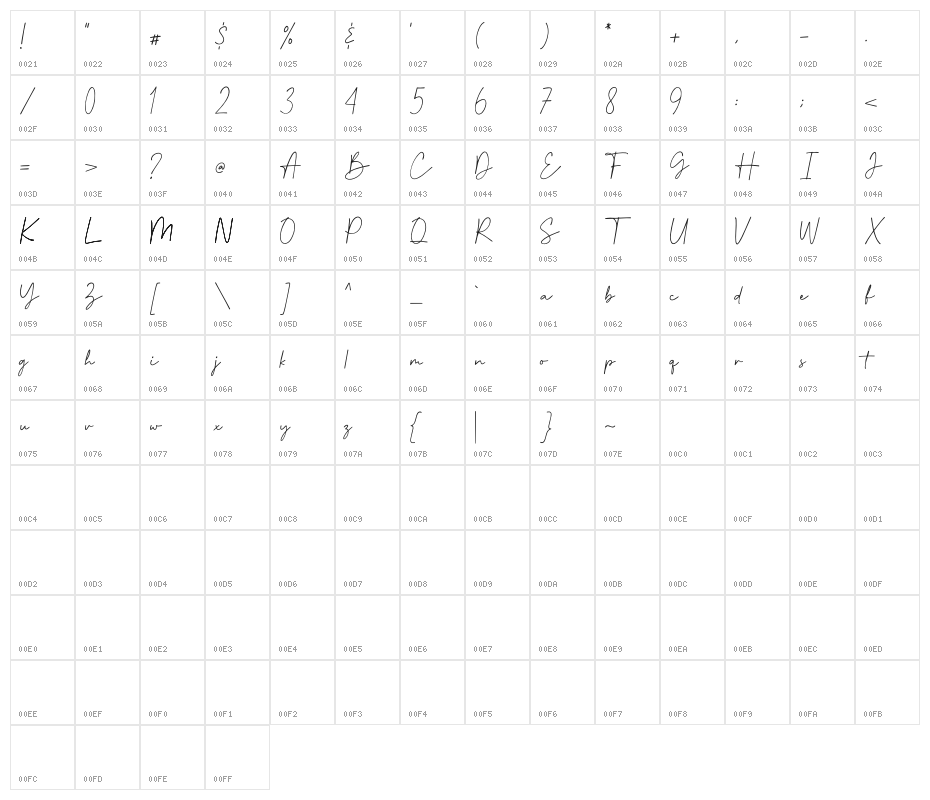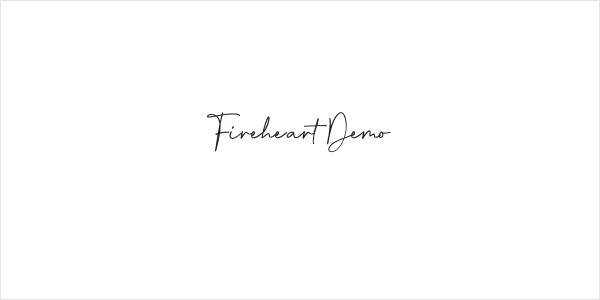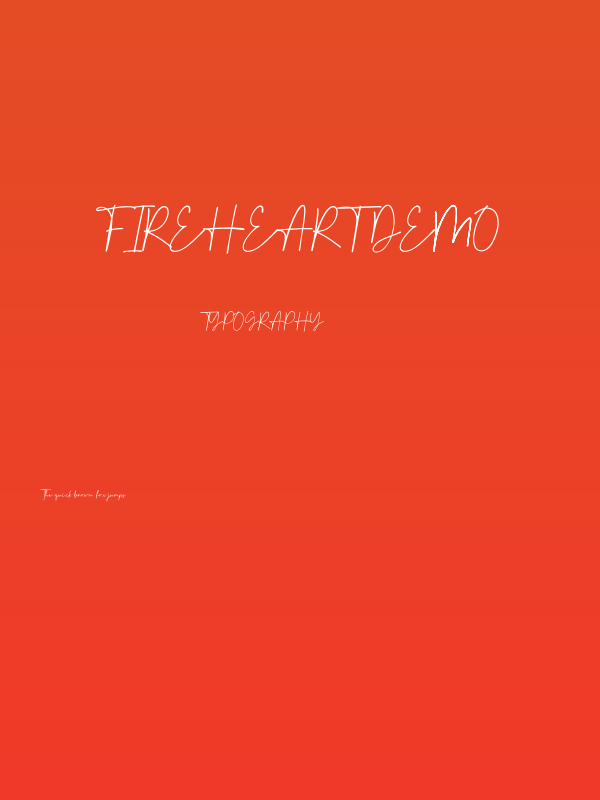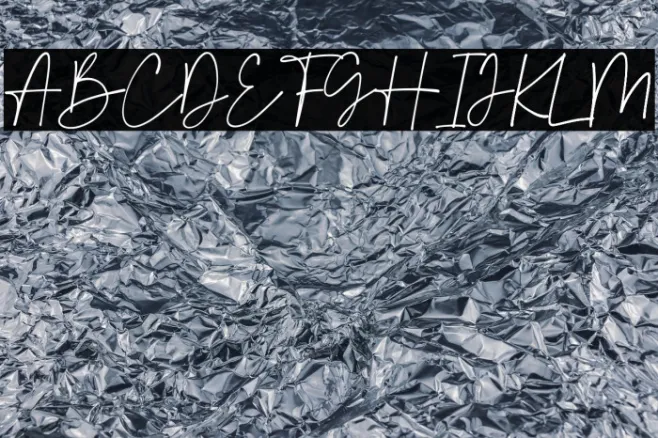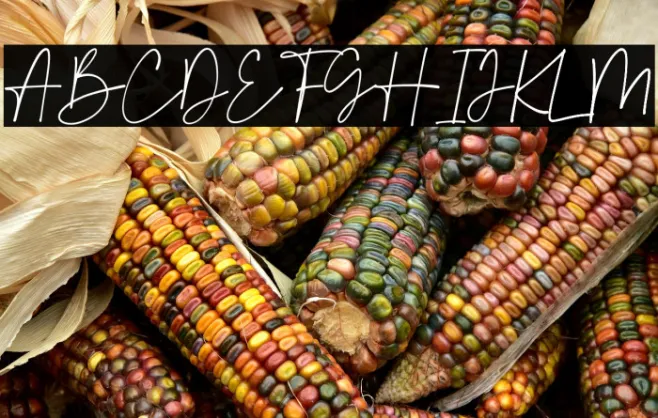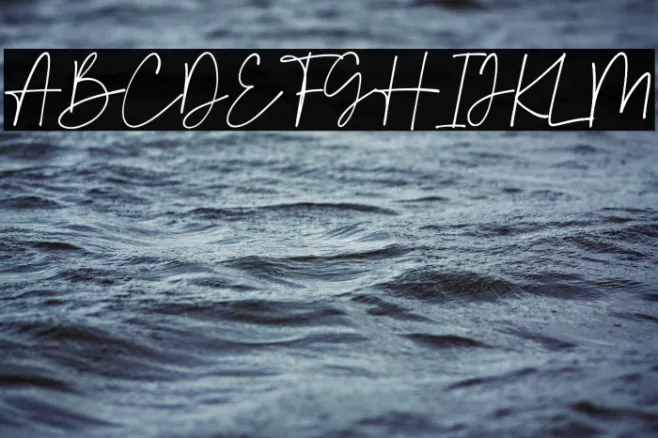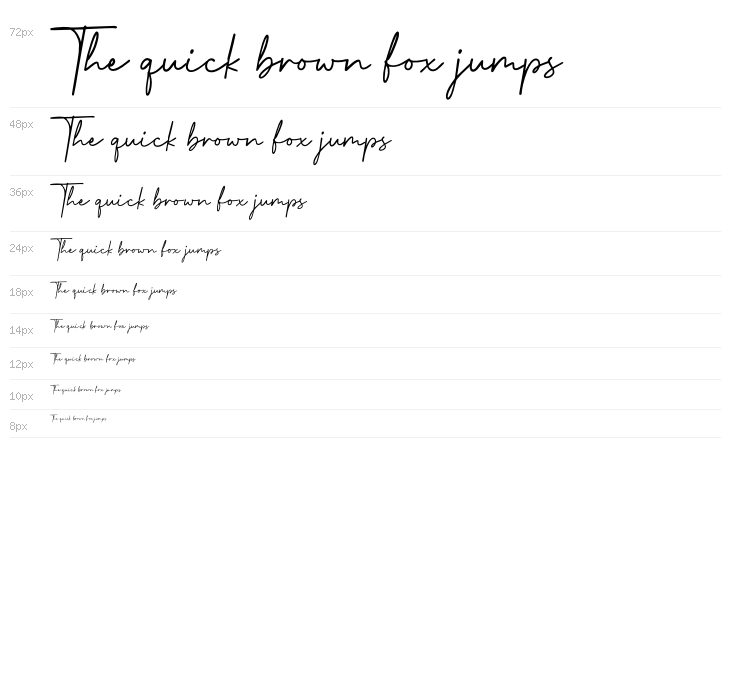
Fireheart Demo Font
Fireheart Demo Description
This font exudes a casual, handwritten style with a modern twist. The characters are elegantly crafted with a fluid, cursive touch that gives off a personal and approachable vibe. The uppercase letters maintain a consistent height, while the lowercase letters exhibit a slight slant, enhancing the handwritten feel. The numerals are clear and distinct, matching the overall style of the alphabet. Special characters are included, maintaining the same fluidity and style. The strokes are consistent in thickness, providing a harmonious appearance across all characters.